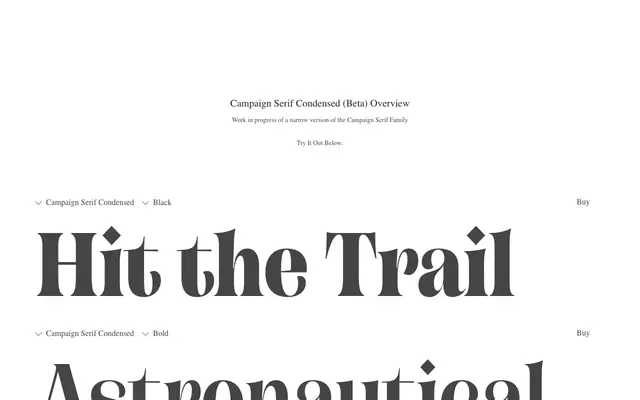
Campaign Serif Condensed
A narrow condensed variant of the Campaign Serif family, currently in beta, spanning six weights from Thin to Black with swash and single-loop g alternates.
Still in active development, Campaign Serif Condensed brings a tight vertical compression to the Campaign Serif family across six weights. Stylistic alternates include a single-loop g and swashy lowercase characters, adding expressive range for headline and campaign use. The beta status suggests further refinement is ongoing, though the weight range is already fully represented.
A condensed display serif with strong vertical compression and multiple weights, suited to editorial headlines and campaign use; the presence of swash alternates and stylistic sets places it firmly in the display category.